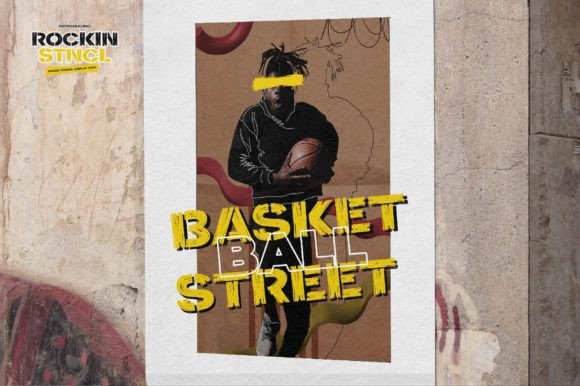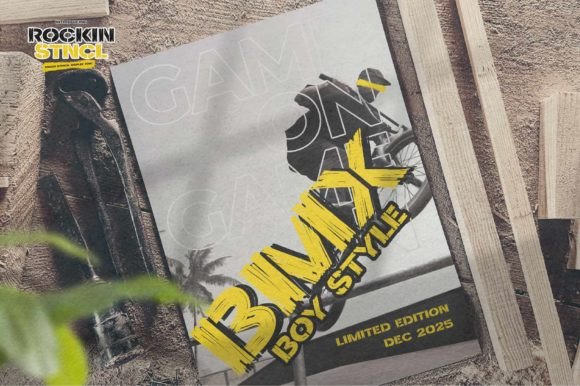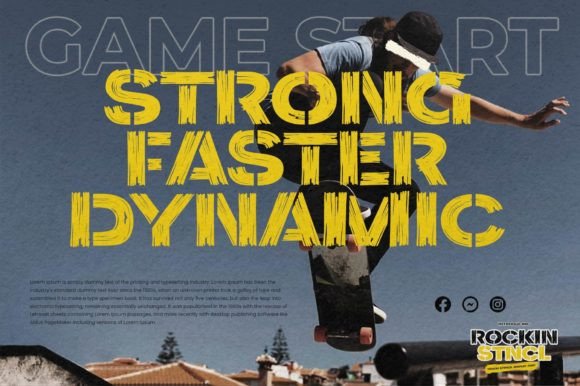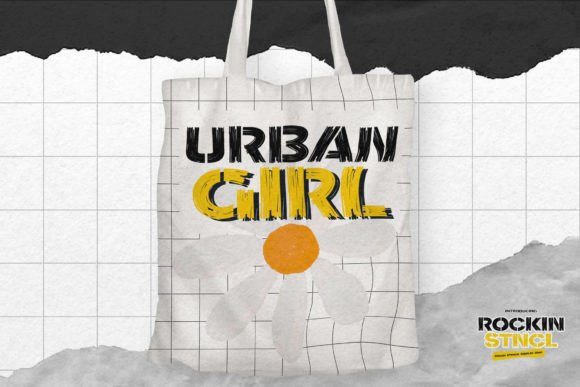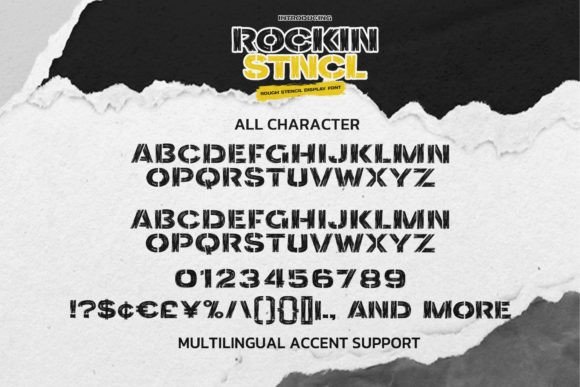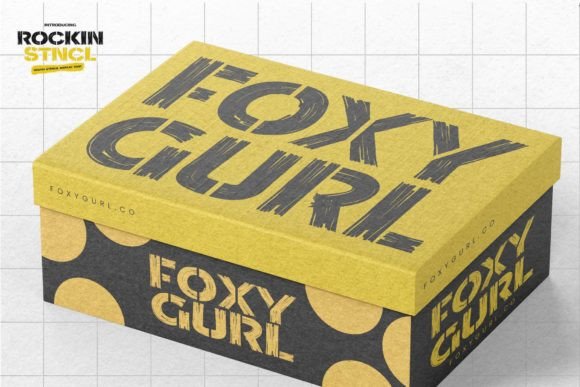
Introduction to Rockin Stncl Font
You know that moment when a design comes together and you feel like you’ve nailed it? The font, the colors, the layout – everything just clicks. And then you add the perfect font to take it to the next level. That’s exactly what the Rockin Stncl Font does. This cool and modern brush display font brings a unique stencil style to your designs, making it a must-have for any creative project.
With its bold and edgy letterforms, Rockin Stncl Font is perfect for creating eye-catching headlines, logos, and posters. And the best part? It’s available as a free download, making it a valuable design resource for any designer. Whether you’re working on a high-quality project or just need a quick design fix, Rockin Stncl Font is the perfect addition to your design toolkit.
Key Features of Rockin Stncl Font
- Unique, hand-drawn design for a high-quality creative project
- Supports a wide range of languages and characters
- Perfect for creating eye-catching graphics, logos, and typography for various design projects
Honest Review: Rockin Stncl Font
As a designer, I’m always on the lookout for unique and high-quality fonts to elevate my creative projects. I recently stumbled upon the Rockin Stncl Font, and I’m excited to share my thoughts on it.
First impressions: the font is incredibly bold and eye-catching. The Rockin Stncl Font is perfect for projects that need a fun and edgy vibe. The free download was a bonus, and I appreciate that the creator made this design resource available to the community.
- Fun and bold aesthetic that grabs attention
- Some users may find the font too bold or overpowering
- Limited versatility for more formal or professional projects
Overall, I’m impressed with the Rockin Stncl Font. While it may not be suitable for every project, it’s a great addition to any designer’s toolkit. If you’re looking for a bold and eye-catching font, the Rockin Stncl Font is definitely worth checking out.